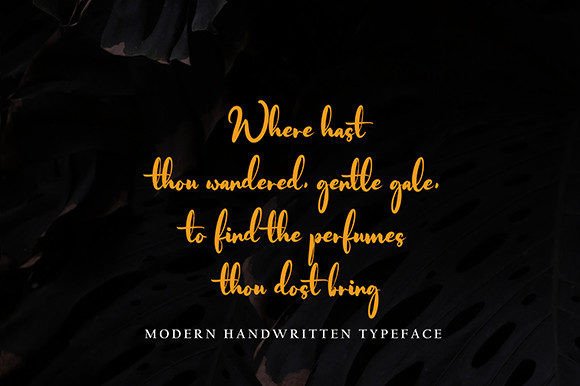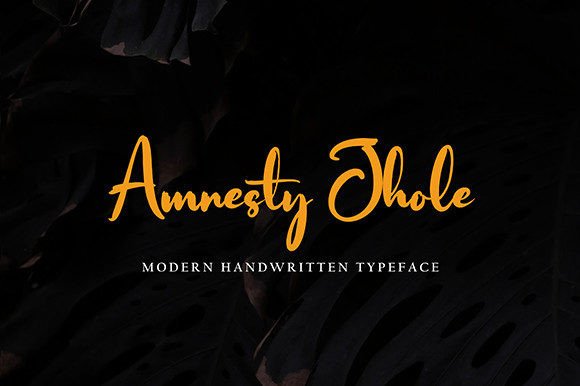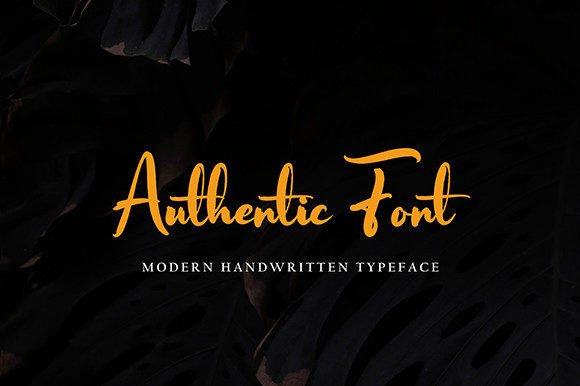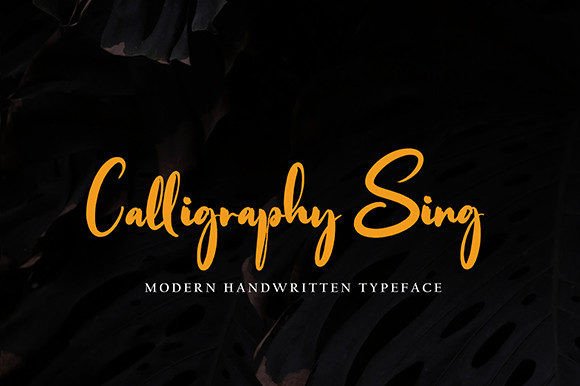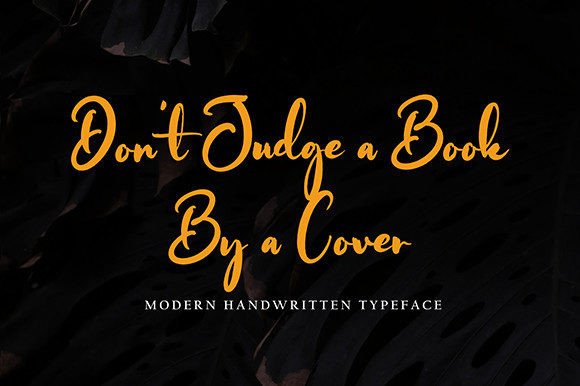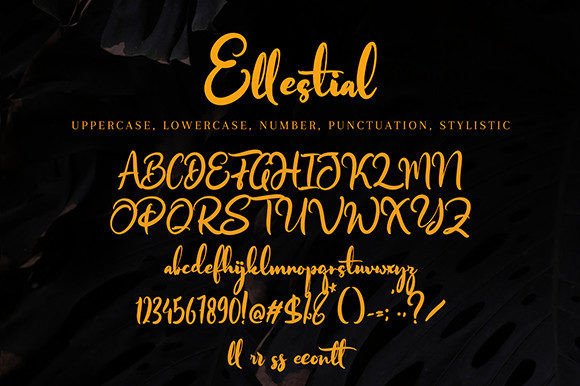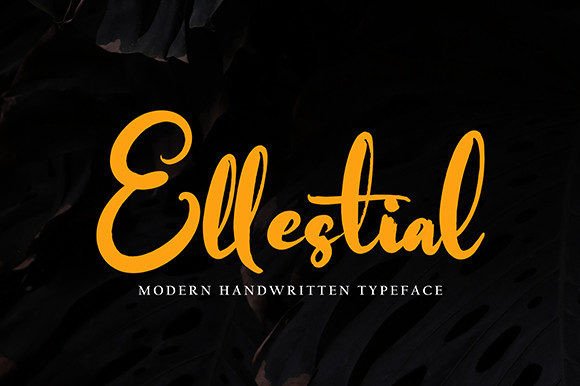
Introducing Ellestial Font: Elevate Your Designs with Elegant Script
Are you a designer or crafter looking for a font that exudes elegance and sophistication? Look no further than Ellestial Font, a stunning script font that brings a touch of classic calligraphy to your modern designs. With its impeccable form and balanced style, Ellestial Font is the perfect choice for those seeking to add a level of refinement to their projects.
The Inspiration Behind Ellestial Font
Ellestial Font draws inspiration from timeless classic calligraphy, evoking the sense of luxury and refinement that comes with it. The font’s creator aimed to strike a balance between traditional and modern elements, resulting in a script font that feels both nostalgic and contemporary. The result is a font that is not too thin and not too thick, but rather perfectly balanced and varied, making it suitable for a wide range of design applications.
Key Features of Ellestial Font
So, what sets Ellestial Font apart from other script fonts on the market? Here are a few key features that make it an excellent choice for designers and crafters:
- Elegant and refined: Ellestial Font boasts an air of sophistication, making it perfect for high-end designs, luxury brands, and elegant crafts.
- Balanced and varied: The font’s carefully crafted strokes and curves create a sense of balance and harmony, ensuring that your text looks beautiful and refined.
- Contemporary atmosphere: Despite its classic inspiration, Ellestial Font has a distinctly modern feel, making it suitable for designs that require a fresh and current aesthetic.
- Impeccable form: Every letter and stroke in Ellestial Font has been meticulously designed to ensure that the font looks polished and professional.
Use Cases for Ellestial Font
Ellestial Font is an incredibly versatile font that can be used in a wide range of design applications, including:
- Branding and logos: Add a touch of elegance to your brand’s identity with Ellestial Font, perfect for luxury brands, high-end products, and premium services.
- Wedding and event designs: Create beautiful wedding invitations, programs, and decorations with Ellestial Font, adding a touch of sophistication to your special day.
- Packaging and labels: Elevate your product packaging with Ellestial Font, perfect for high-end products, gourmet foods, and luxury cosmetics.
- Stationery and cards: Add a touch of elegance to your stationery, greeting cards, and invitations with Ellestial Font.
Tips for Using Ellestial Font